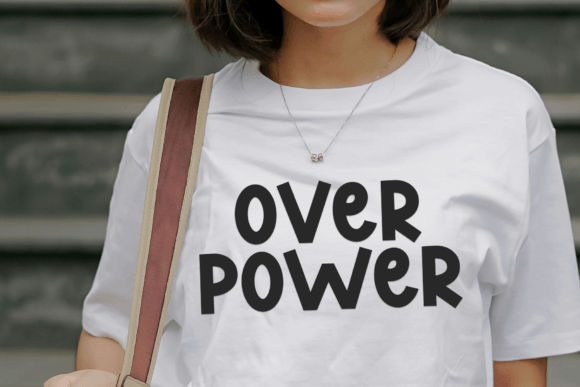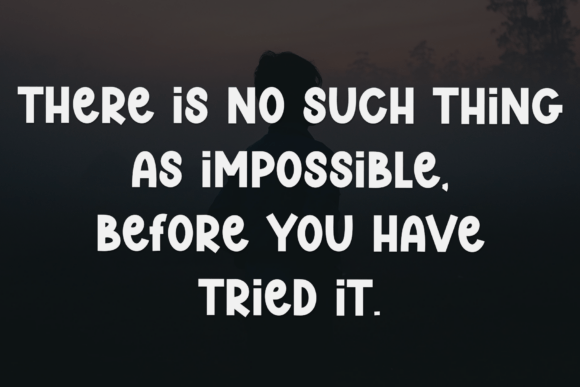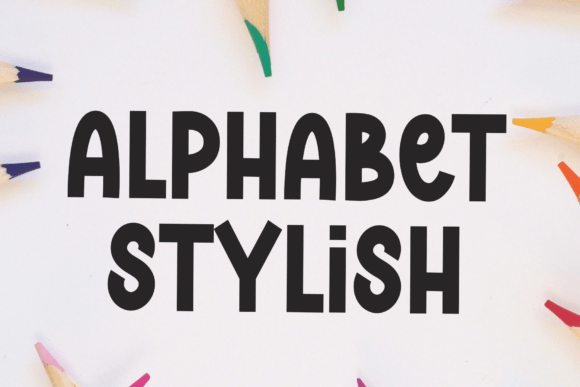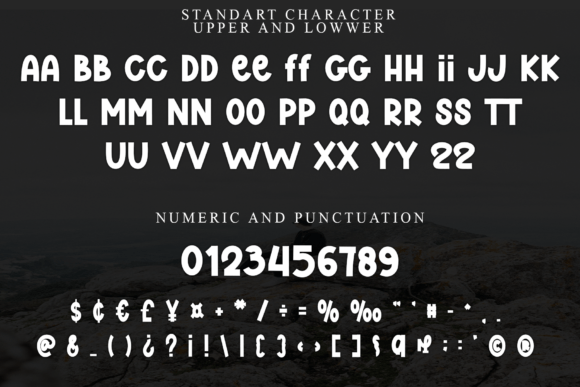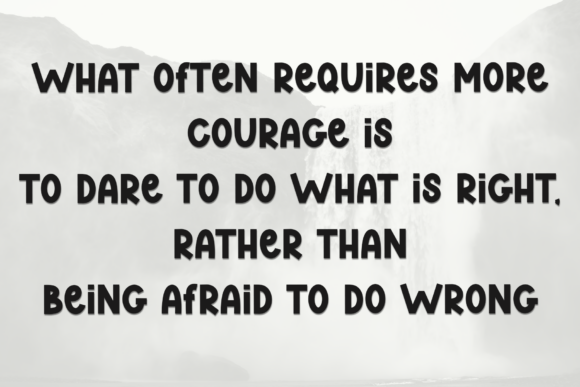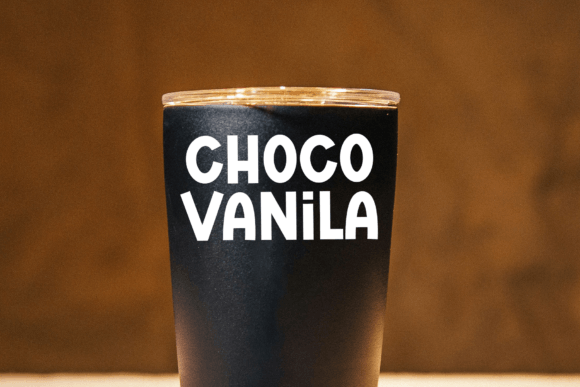
Bolding Create Font: Unleash Your Creativity with this Bold and Playful Typeface
In the world of design, typography plays a crucial role in conveying messages, evoking emotions, and creating a lasting impression. When it comes to making a statement, a bold and eye-catching font is essential. This is where Bolding Create comes in – a modern font designed to bring energy, creativity, and personality to your projects. In this article, we’ll dive into the world of Bolding Create, exploring its unique features, and how it can elevate your designs to the next level.
The Birth of Bolding Create
Bolding Create is a bold and playful modern font, carefully crafted to add a touch of fun and quirkiness to your designs. Its creator aimed to design a typeface that would not only grab attention but also inspire creativity and enthusiasm. With Bolding Create, you can bid farewell to dull and mundane typography, and hello to a world of vibrant and energetic designs.
Key Features of Bolding Create
So, what makes Bolding Create stand out from the rest? Here are some of its key features:
- Bold and Playful Letterforms: Bolding Create boasts fun and quirky letterforms that are sure to make your designs pop. Its bold strokes and rounded edges give it a friendly and approachable feel.
- Modern and Fresh: This font is perfect for designers looking for a modern and fresh take on traditional typography. Its clean lines and minimalist aesthetic make it an excellent choice for a wide range of design projects.
- Highly Versatile: Bolding Create is an incredibly versatile font, suitable for various design applications, including posters, headlines, branding, and cheerful designs.
Bolding Create is a dream come true for designers and crafters looking to add a personal touch to their projects. Whether you’re working on a:
- Poster: Grab attention with bold and eye-catching headlines that demand to be noticed.
- Branding Project: Create a lasting impression with a unique and memorable typography that reflects your brand’s personality.
- Cheerful Design: Add a touch of whimsy and playfulness to your designs, perfect for projects that require a bit of fun and flair.
Bolding Create is the perfect companion to help you unleash your creativity and bring your ideas to life.
Why Choose Bolding Create?
With so many fonts available, why choose Bolding Create? Here are just a few reasons:
- Unique and Exclusive: Bolding Create offers a distinctive and exclusive look that’s sure to set your designs apart from the crowd.
- Ease of Use: This font is incredibly easy to use, making it perfect for designers of all skill levels.
- High-Quality: Bolding Create is a high-quality font, carefully crafted to ensure it meets the demands of professional designers.
In conclusion, Bolding Create is an exceptional font that’s sure to bring energy, creativity, and personality to your designs. Its bold and playful letterforms, modern aesthetic, and versatility make it an excellent choice for designers and crafters looking to make a statement. Whether you’re working on a poster, branding project, or cheerful design, Bolding Create is the perfect companion to help you unleash your creativity and bring your ideas to life.